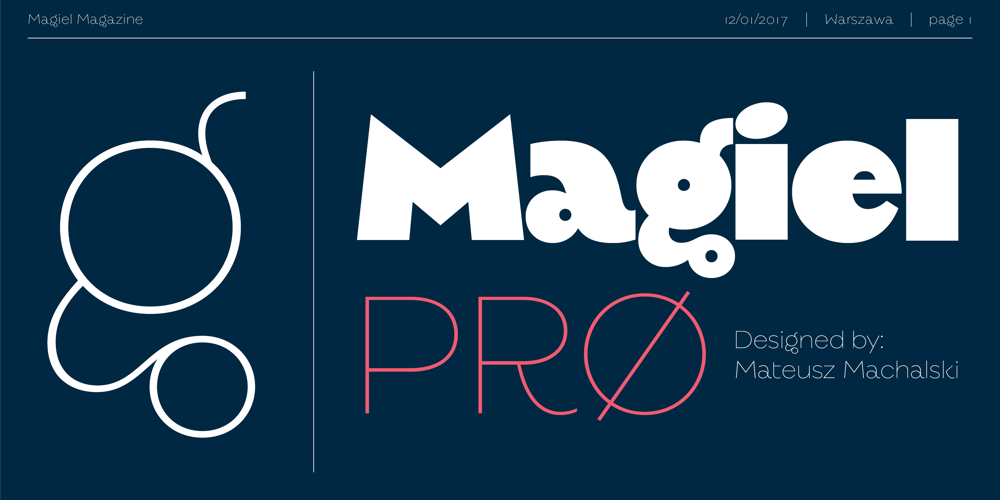
Magiel Pro Font Family was designed by Mateusz Machalski and published by Machalski. Magiel Pro contains 2 styles and family package options. Magiel PRO is a geometric, display type family, inspired by old Polish banners, from PRL period. Letters have a lot of construction mistakes, based on an original designs from 1945-1989. Whole family consist of two styles – Black and Hairline, with Cyrillic (also Bulgarian set). Magiel PRO also has a lot of stylistic sets. Magiel is a part of Warsaw Types project.